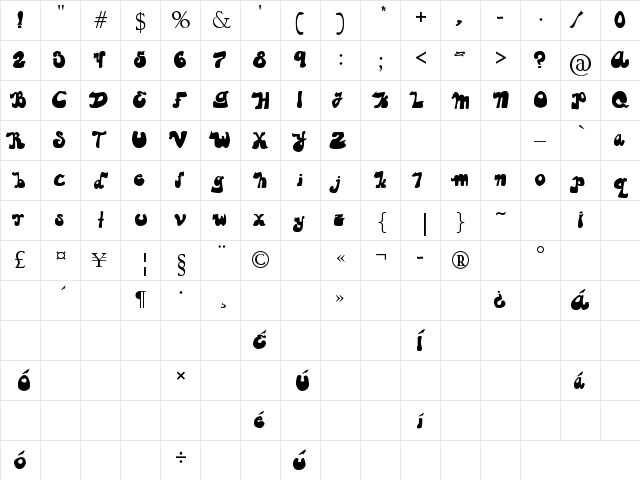
guapachosa Regular
Design Context for guapachosa Typeface
guapachosa is a composed and adaptable typeface that performs quietly and consistently across a wide range of design contexts.